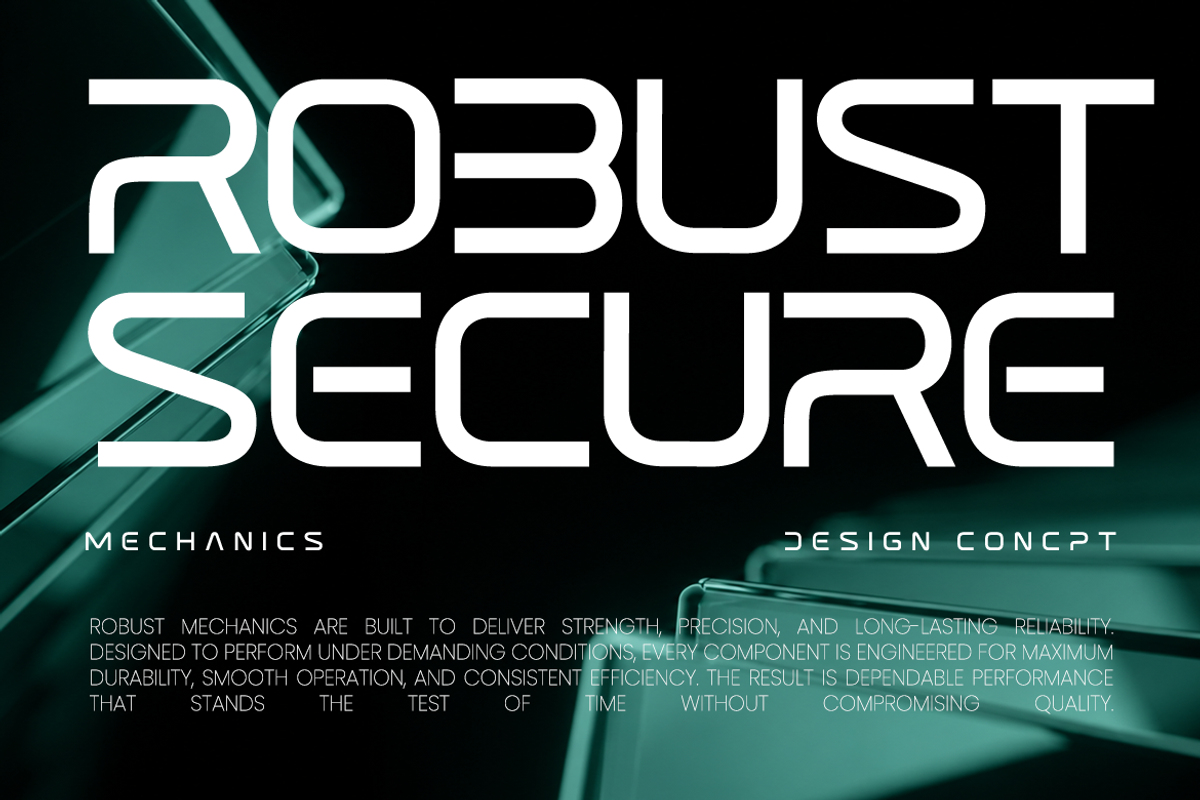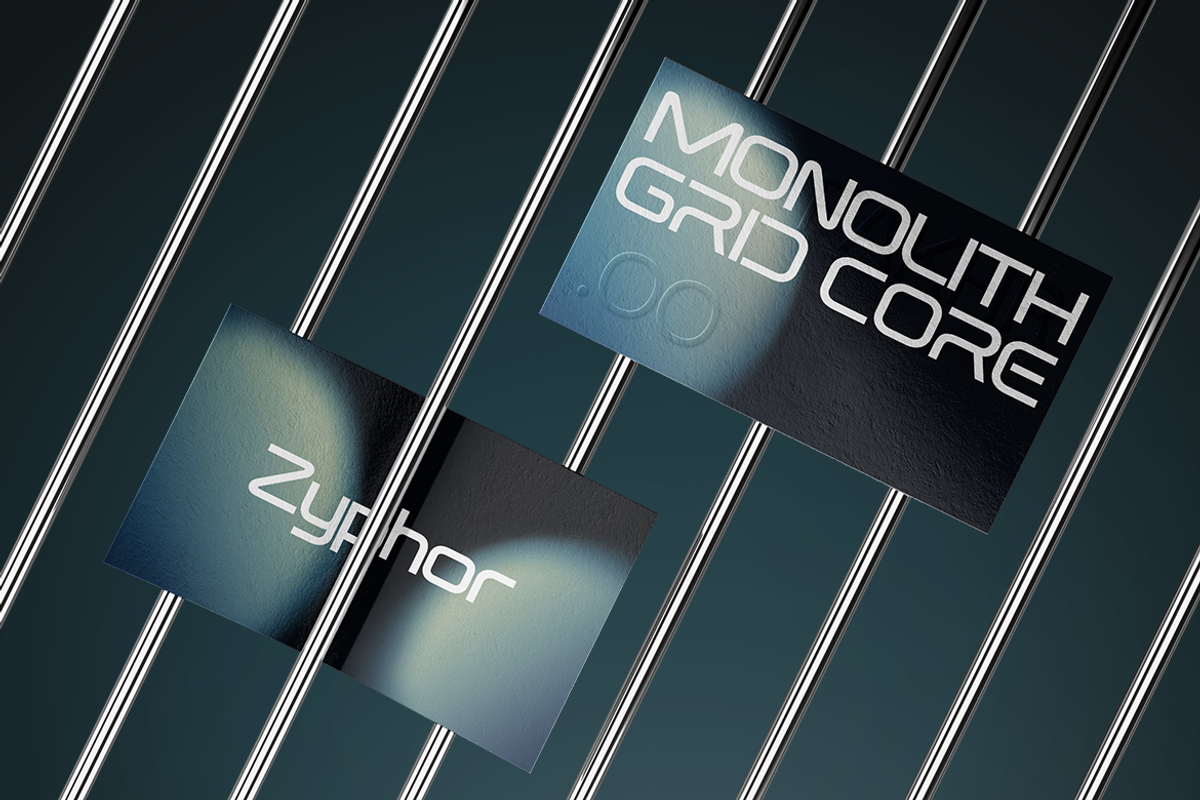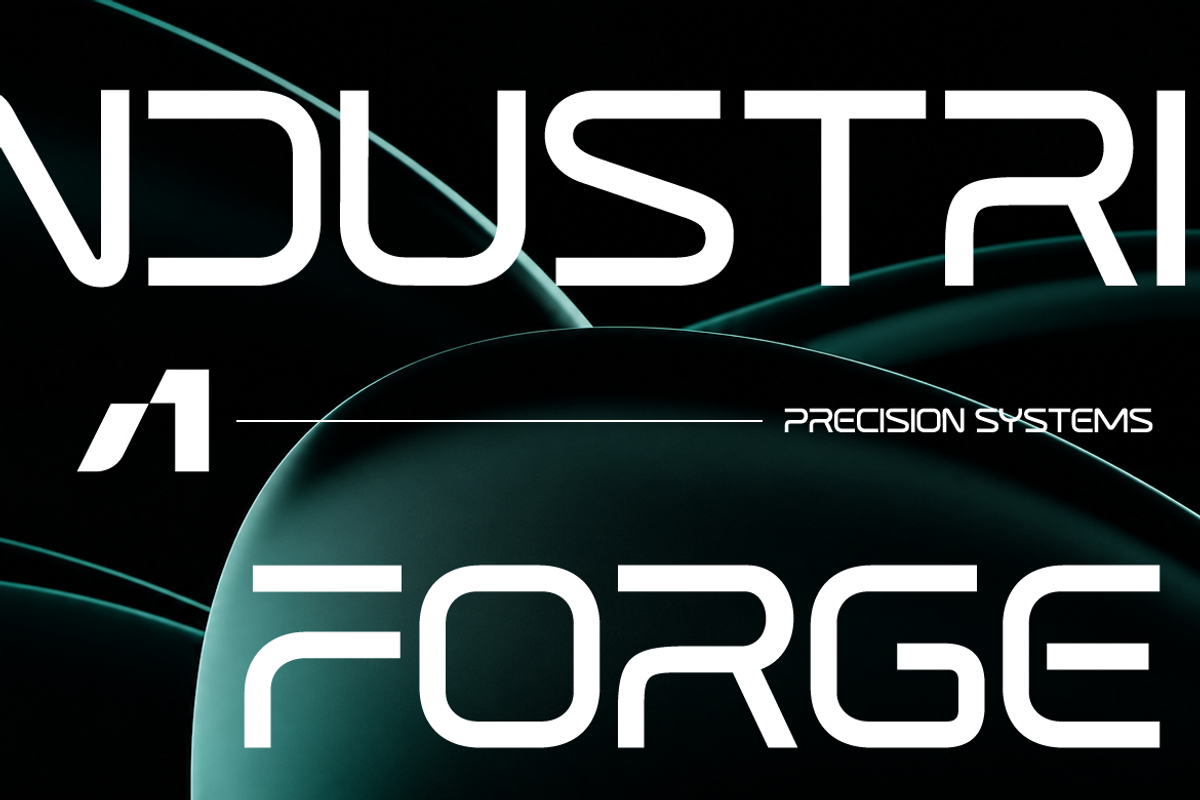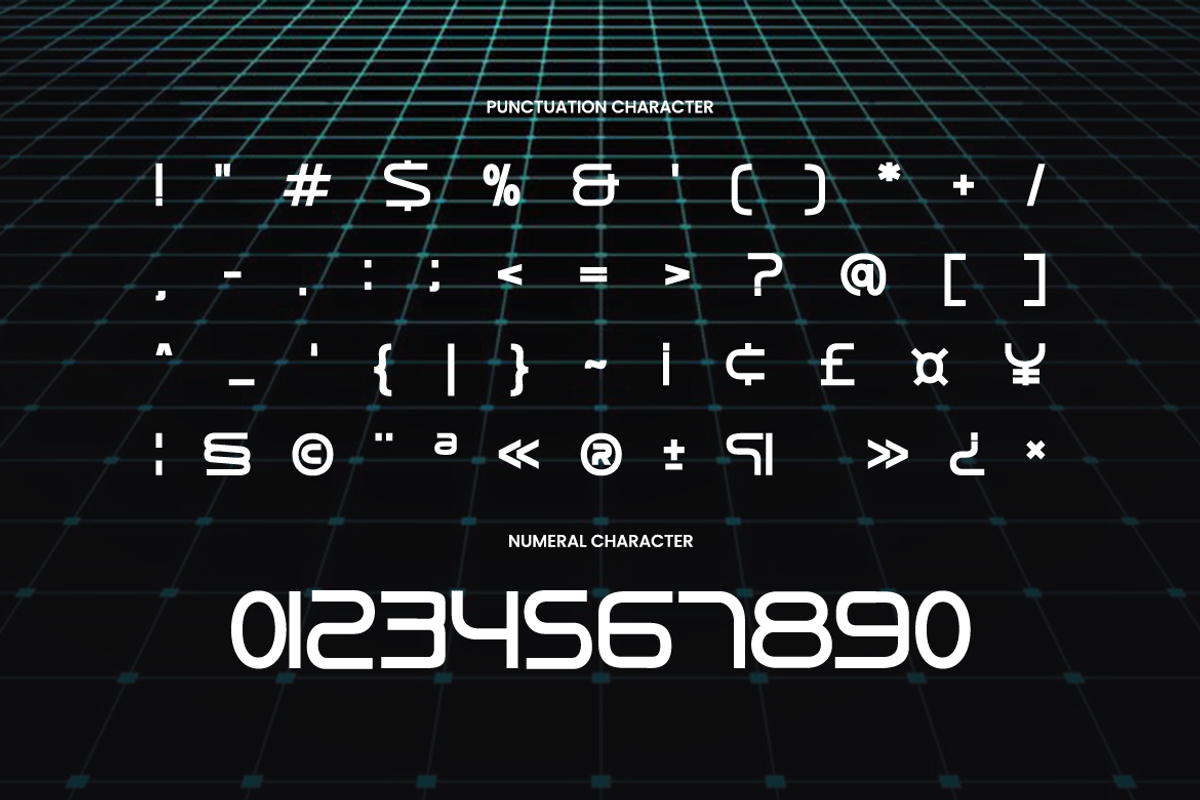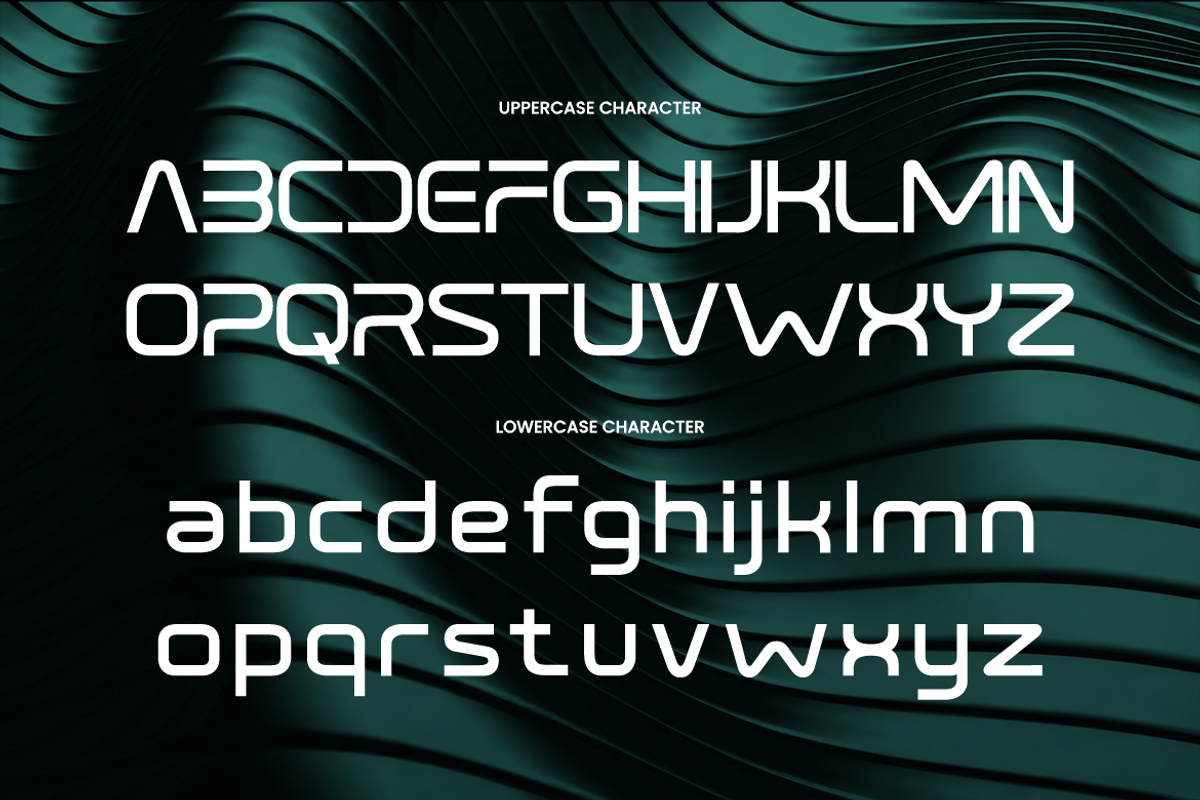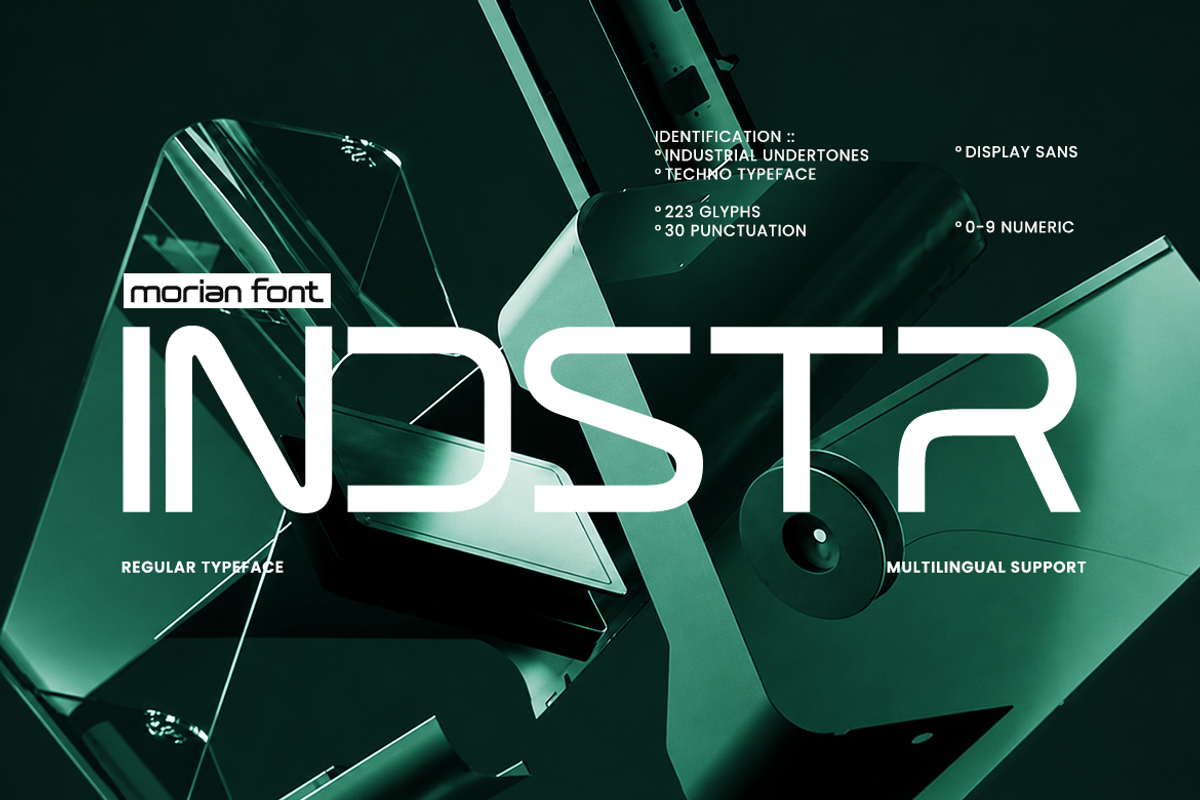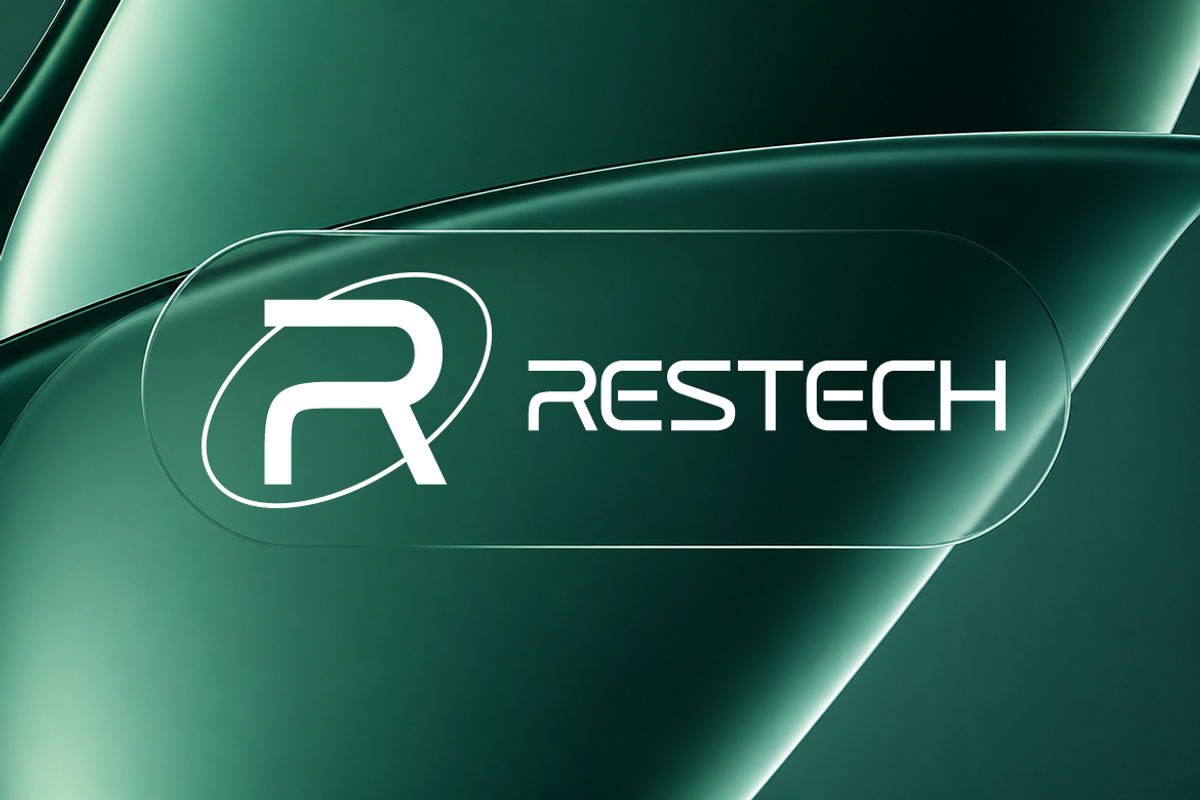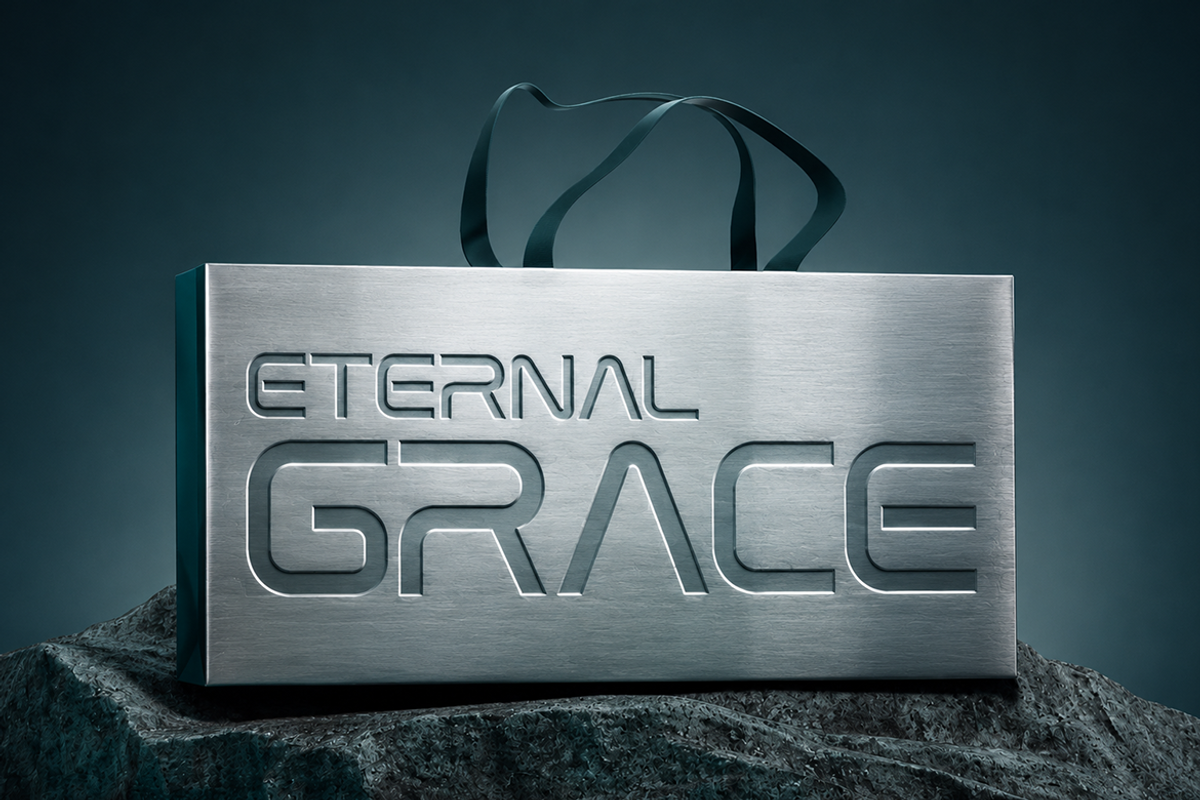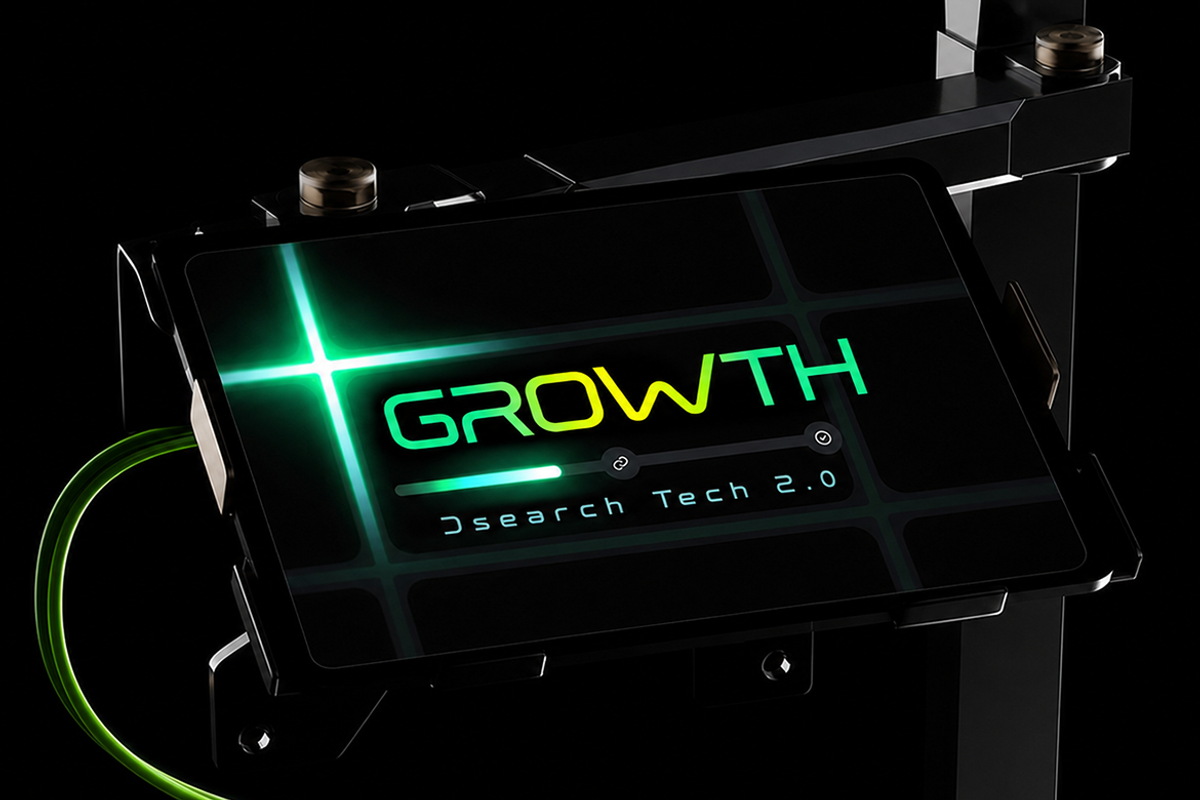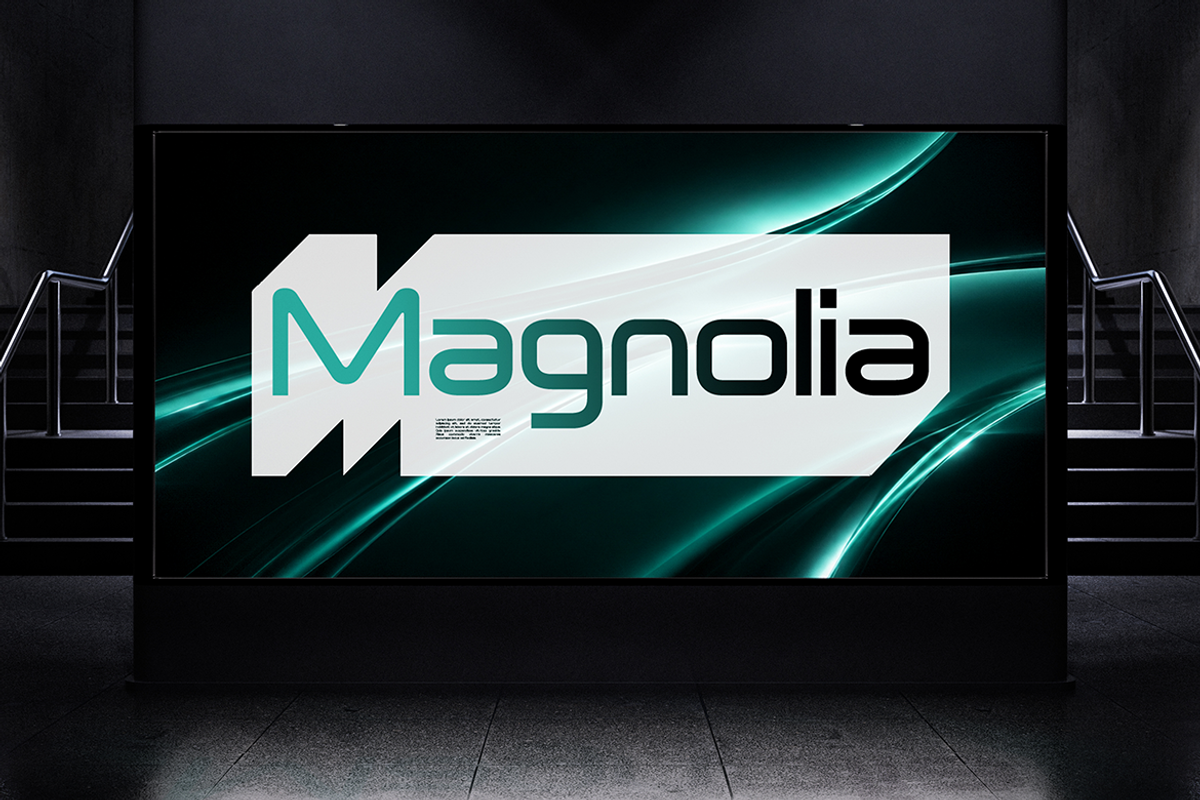
Morian Industrial Tech Display Font
Morian Industrial Tech Display Font s an industrial-inspired display sans serif that combines futuristic aesthetics with refined geometric construction, creating a distinctive typeface for contemporary visual communication. Every character is built with balanced proportions, rounded corners, open apertures, and smooth transitions that soften its technical appearance while preserving a precise, engineered personality. The consistent stroke weight and carefully controlled spacing produce a clean rhythm across words, allowing headlines to remain highly legible even at large sizes.
Designed primarily for display purposes, Morian excels wherever typography needs to become the focal point of a composition. The font performs beautifully in logos, technology branding, product identities, software interfaces, esports graphics, startup campaigns, digital advertisements, UI and UX presentations, packaging, website hero sections, motion graphics, exhibition visuals, and editorial covers. Its contemporary industrial character also makes it an excellent choice for automotive brands, robotics companies, engineering firms, AI products, cybersecurity services, consumer electronics, and futuristic concept projects. Whether used for bold headlines or distinctive brand marks..
Futuristic geometric architecture with industrial design influences
Softly rounded terminals balanced by sharp structural precision
Open character shapes that improve clarity at large display sizes
Uniform stroke thickness creating a sleek and contemporary visual rhythm
Carefully engineered proportions optimized for logos, headlines branding
Technology companies building bold and innovative brand identities
Robotics, artificial intelligence, and engineering-related visual communications
Gaming titles, esports graphics, and futuristic entertainment branding
Digital products, software launches, and user interface presentations
Posters, packaging, exhibition graphics, and promotional campaigns,
Screen-optimized kerning for responsive web design
Supports numerals, punctuation, and extensive symbol set
Power your vision with Morian and shape bold identities through futuristic precision